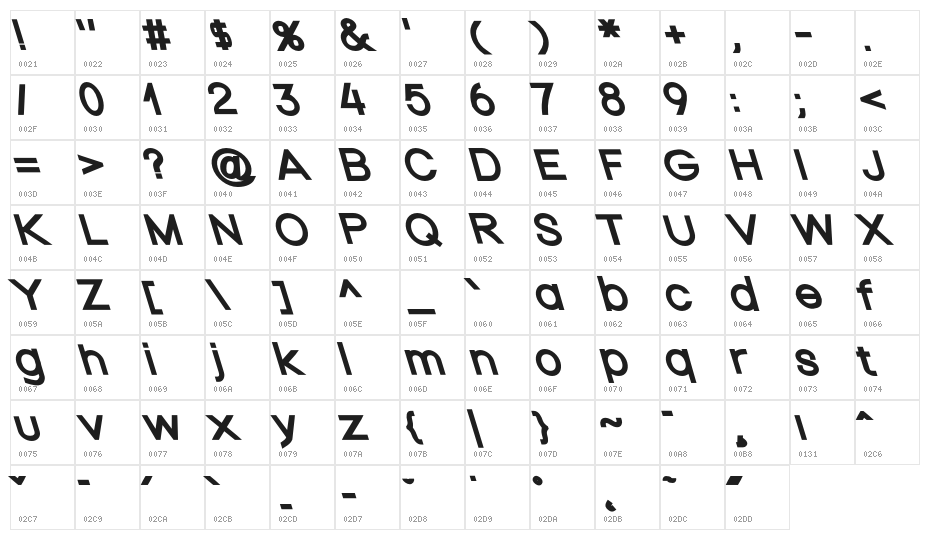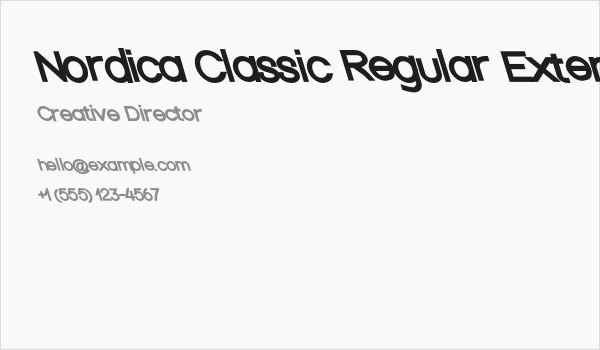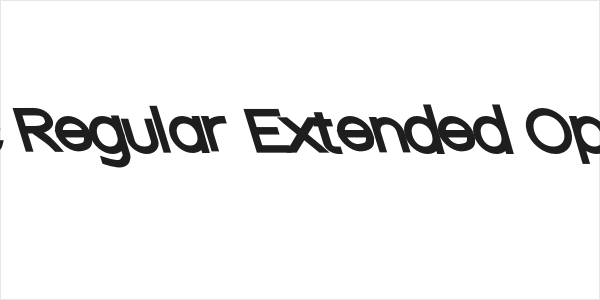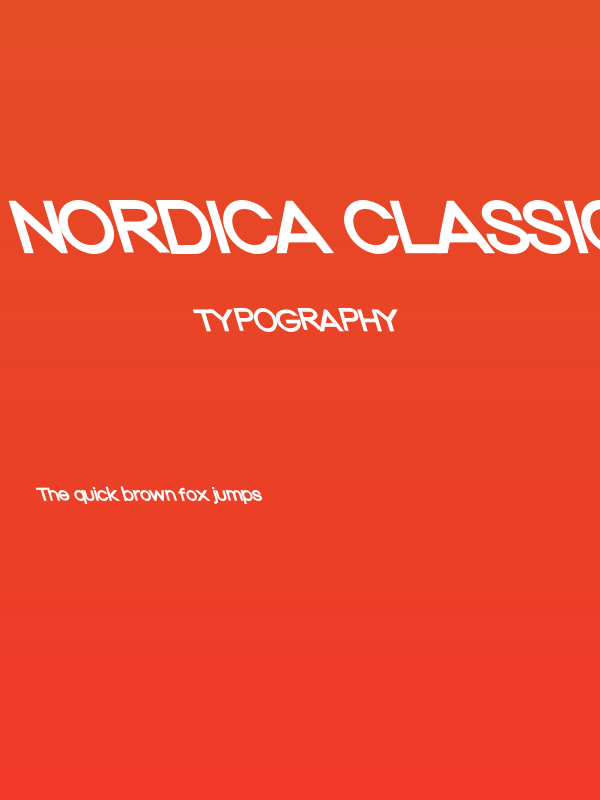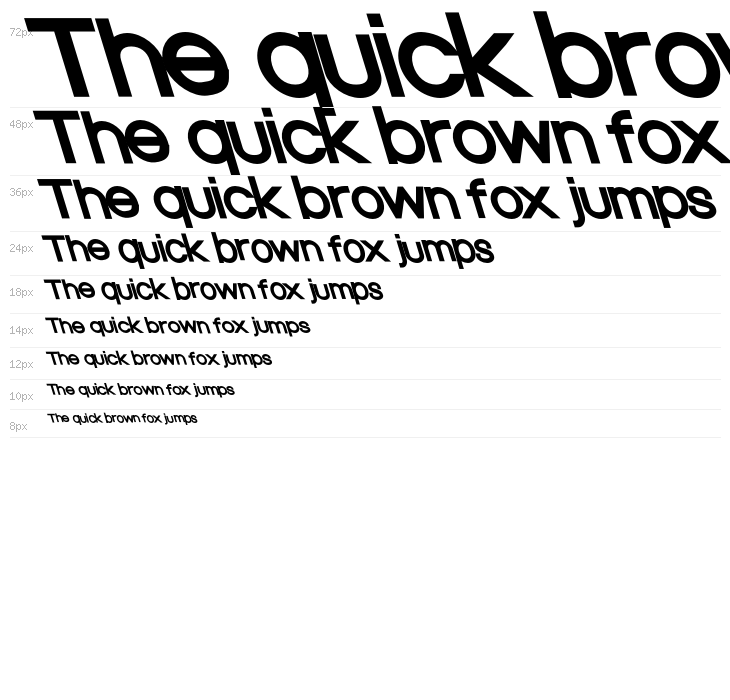
Nordica Classic Regular Extended Opposite Oblique Font
Nordica Classic Regular Extended Opposite Oblique Description
This font features a bold and dynamic style with a distinct oblique slant, giving it a sense of movement and energy. The characters are extended, providing a wide and expansive appearance that enhances readability. The uppercase and lowercase letters maintain a consistent weight, contributing to a cohesive look. The numerals are clear and well-defined, matching the overall boldness of the alphabet. Special characters are included, maintaining the same stylistic elements, ensuring uniformity across all text elements. The font's modern and sleek design makes it suitable for contemporary projects.